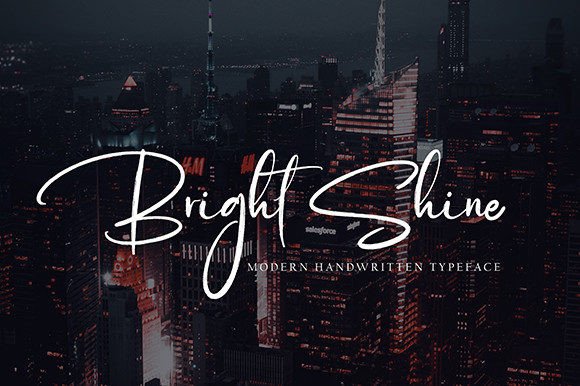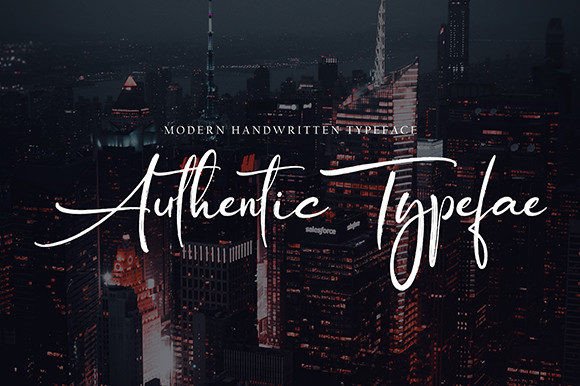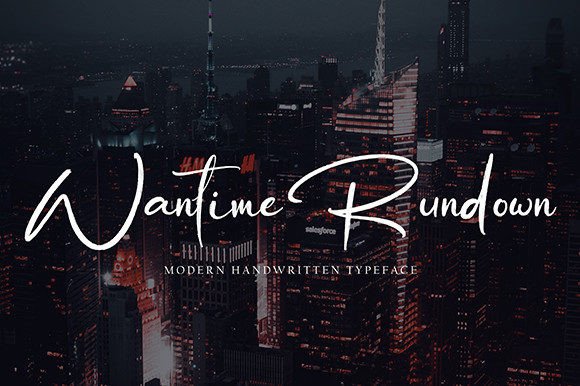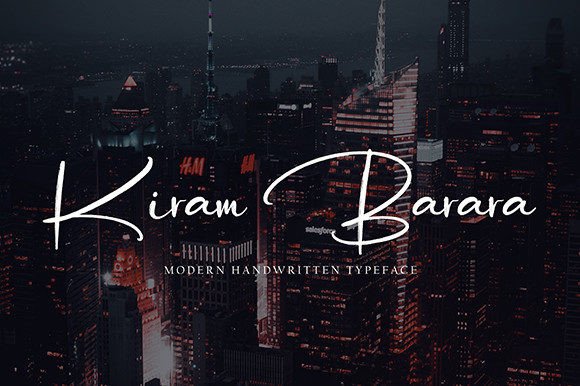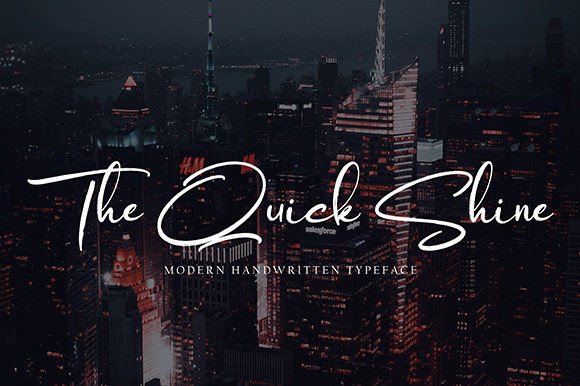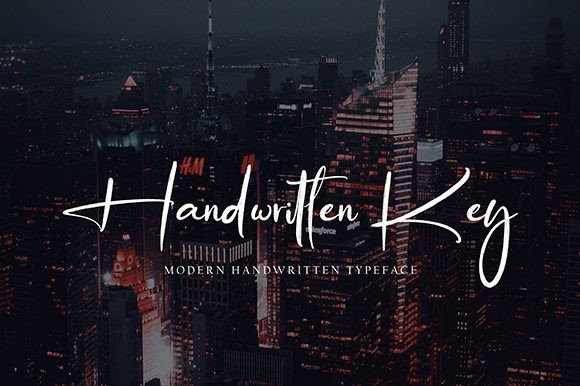
Introduction to Kejilra Montes Font
As a designer, there’s nothing quite like the thrill of bringing a creative project to life. It’s that moment when all the elements come together, and you see your vision take shape. But what makes a project truly stand out? For me, it’s often the little details – like the font – that can make all the difference. That’s why I’m excited to share with you one of my favorite design resources: the stunning Kejilra Montes Font.
This romantic and sweet calligraphy typeface is a game-changer for any design project. With characters that dance along the baseline, it adds a luxury spark that’s hard to resist. Whether you’re working on a wedding invitation, a luxury brand’s marketing materials, or simply a personal project, Kejilra Montes Font is sure to elevate your design to the next level.
Key Features of Kejilra Montes Font
- Unique, hand-drawn design with a touch of elegance and sophistication, making it perfect for creative projects.
- Part of a comprehensive font family, offering a range of styles and weights to enhance your design projects.
- Ideal for use in creative projects, including branding, packaging, and editorial design, where a unique and sophisticated look is desired.
Honest Review: Kejilra Montes Font
The font itself is of high quality, with a beautiful, elegant design that’s perfect for creative projects that require a touch of sophistication. I particularly love the transparent background option, which allows for seamless integration with any design element.
- ⚠️ Limited font sizes and styles available (although this may be a deliberate design choice)
- ⚠️ Not suitable for projects that require bold, attention-grabbing typography
Overall, I’m impressed with the Kejilra Montes Font. While it may not be the most versatile font, it’s a great addition to any design library and perfect for projects that require a touch of elegance and sophistication.
The Kejilra Montes Font is ideal for use in logos, branding materials, and digital products. Its unique design and high-quality texture make it a great choice for creative projects requiring a premium look and feel.